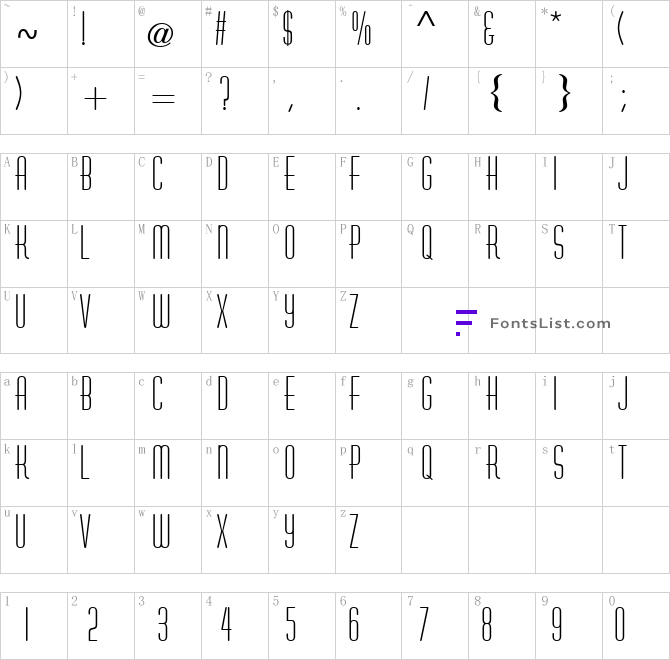
- Font Name:Aldous Vertical
Aldous-Vertical.ttf is a very beautiful artistic font, Aldous-Vertical.ttf is widely used in the design and printing of various books and pictures,Aldous-Vertical.ttf has a strong visual impact,Aldous-Vertical.ttf is a commonly used font in newspapers, magazines and books, and is used in posters, e-commerce Poster design, store design, logo design, font design and other fields.Aldous-Vertical.